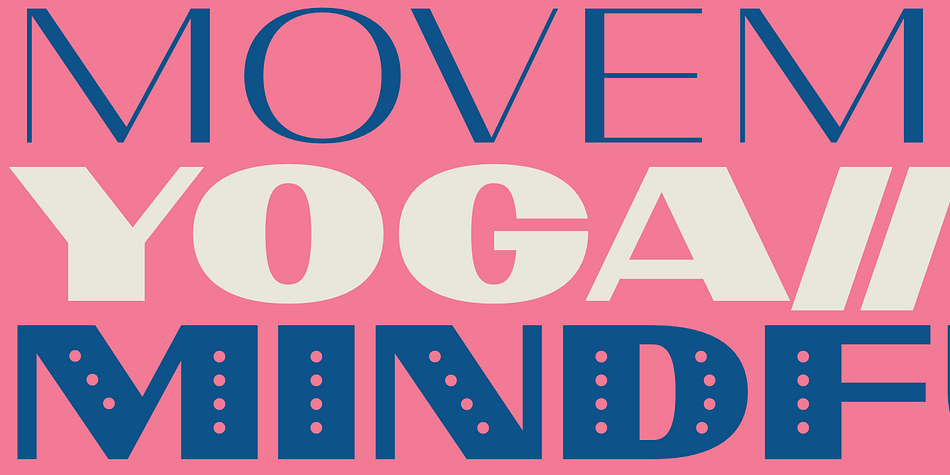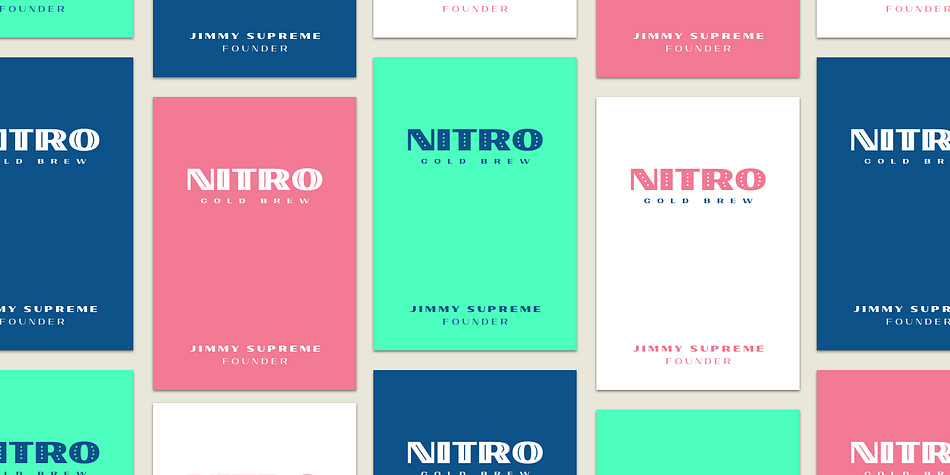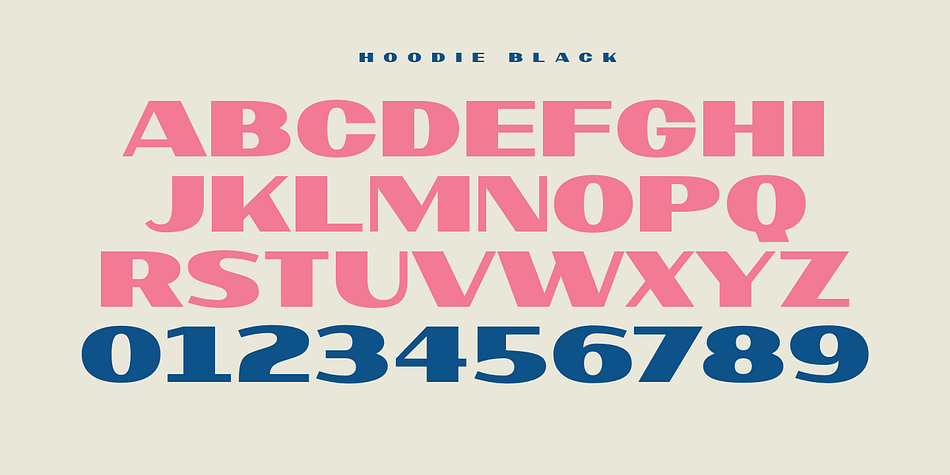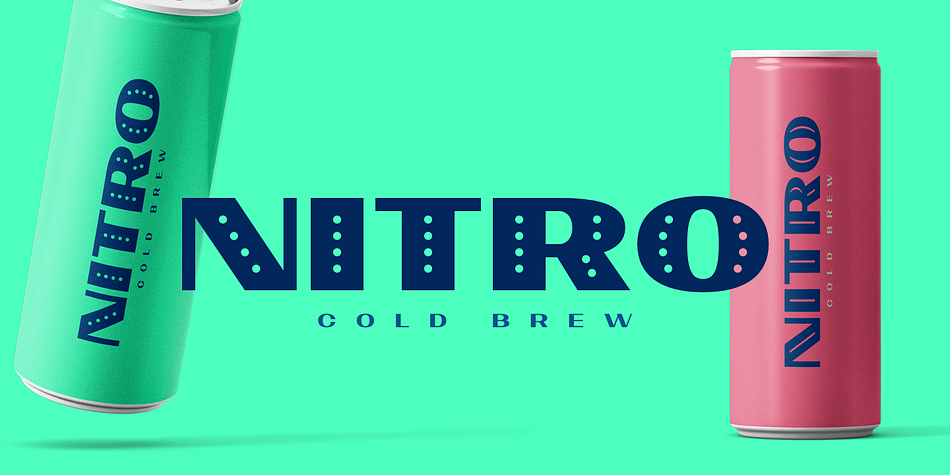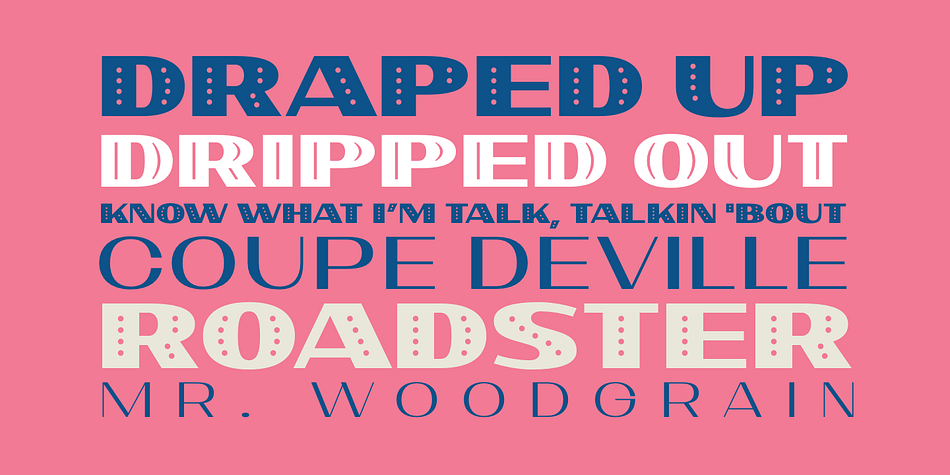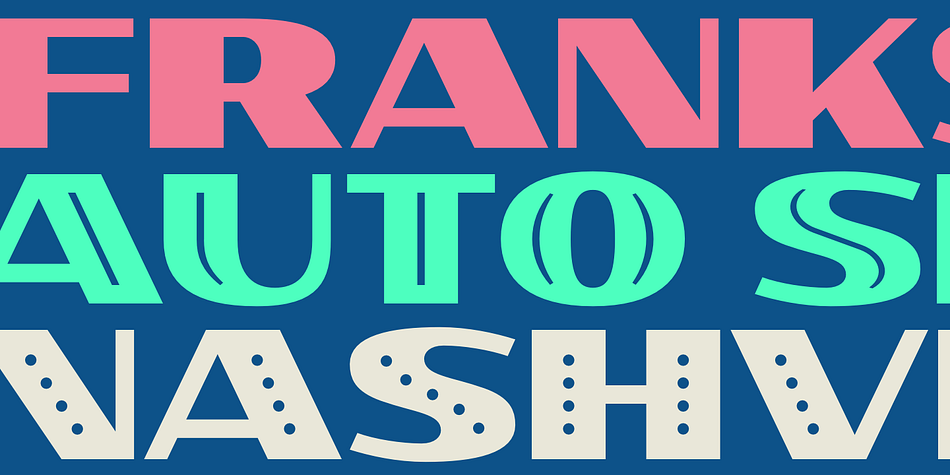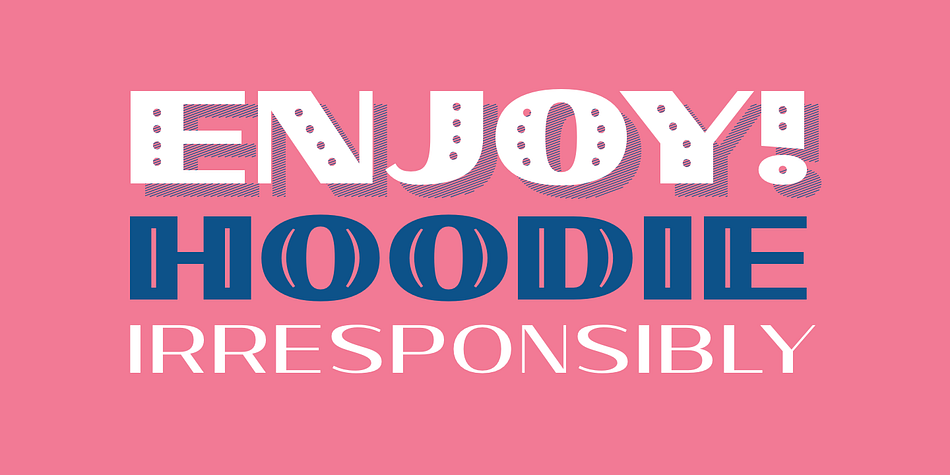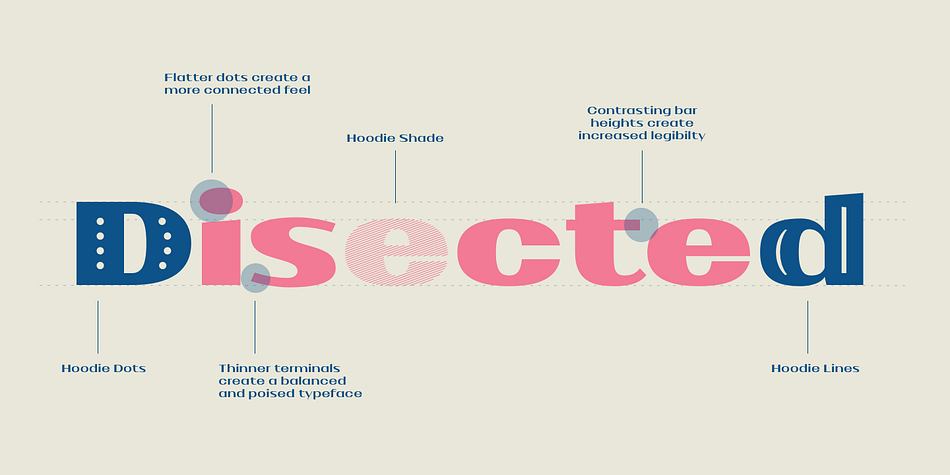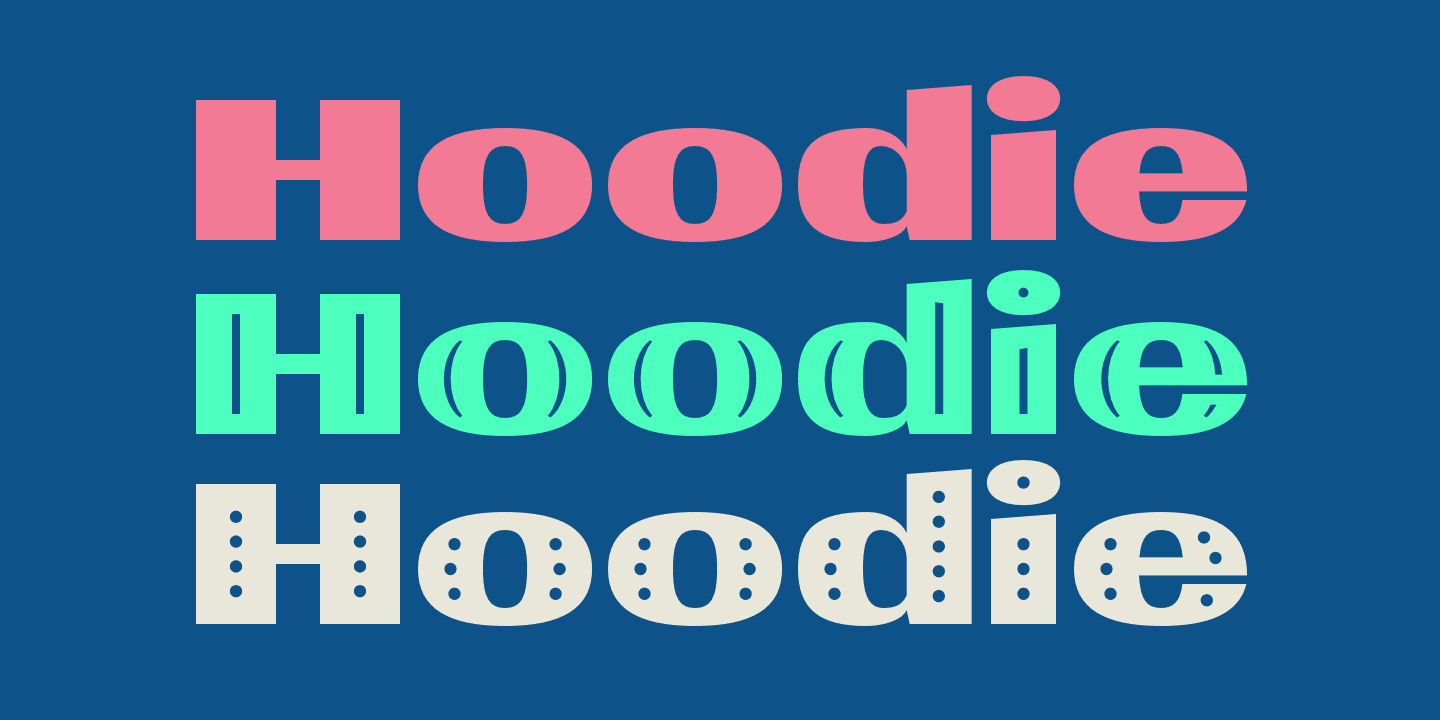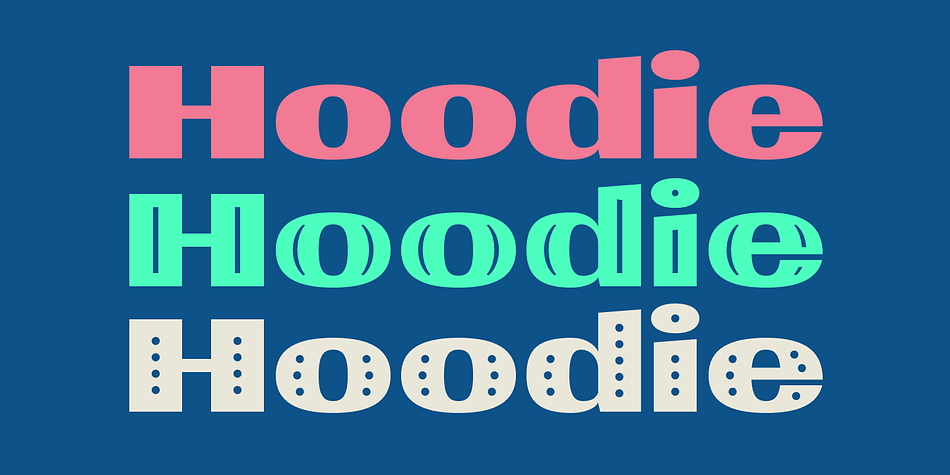
Designed by Dan Jones, Hoodie is a display sans and retro font family. This typeface has ten styles and was published by TypeUnion.
Hoodie was born out of a love for retro Americana and vintage signs but designed with a contemporary fresh twist that makes the font a true attention seeker.
The font is made up of 7 weights, plus 3 fun specials (dots, lines and shade) that create a multitude of uses and options. From logos to packaging and everything in between, Hoodie will be an attention grabber in all types of layouts and placements.
Hoodie has features such as extensive language support, case sensitive characters, ligatures and number options (Denominator, Numerator, Superior and Inferiors), making it a truly versatile font.